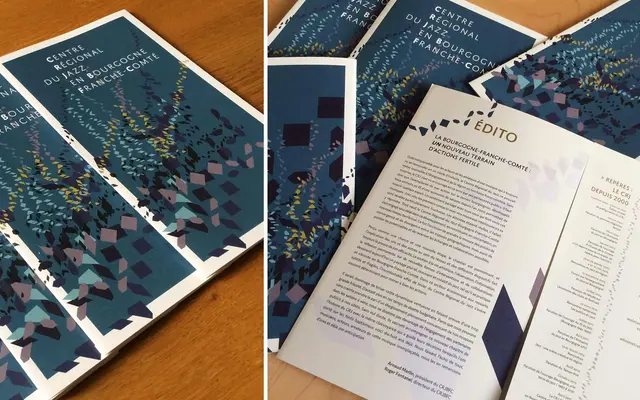
JAF Domus Titling
Just Another Foundry · Shoko Mugikura & Tim Ahrens · 2011
An all-caps rounded sans designed for display use, drawing on classical Roman letter proportions across seven weights.
Designed by Shoko Mugikura and Tim Ahrens and published in 2011, this all-caps titling face pairs rounded terminals with the wide, classical proportions of Roman capitals. Seven weights run from Extralight to Extrabold, with no italics, reflecting its purpose as a headline and display tool. The family includes a large accented character set, small caps and alternate glyphs, making it more versatile than its display brief might suggest.
Designed specifically as an all-caps display sans with rounded terminals and classical Roman proportions, placing it firmly in the display category with a rounded subcategory.